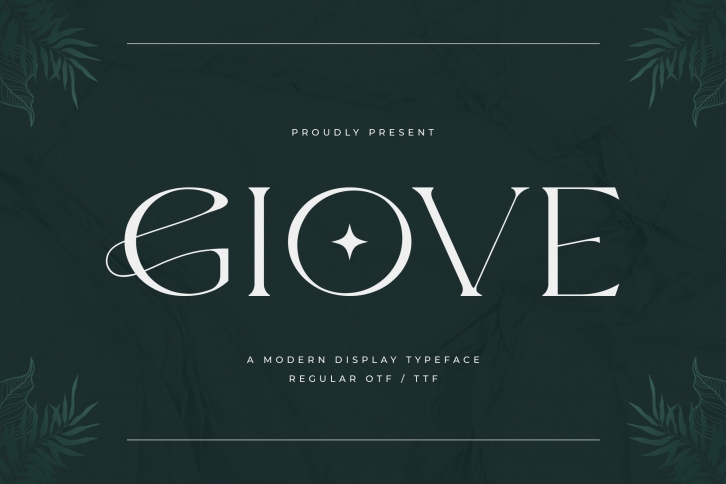
Giove is an modern display font.
Elegantly crafted and easily be matched to an incredible large set of projects.
Use this font to achieve an exquisite, yet subtle look and maximum versatility.